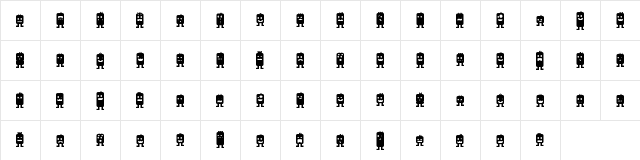
Monsterz Regular
| Designer | Slaager David Alexander |
Design Context for Monsterz Typeface
Monsterz is a composed and adaptable typeface that performs quietly and consistently across a wide range of design contexts.